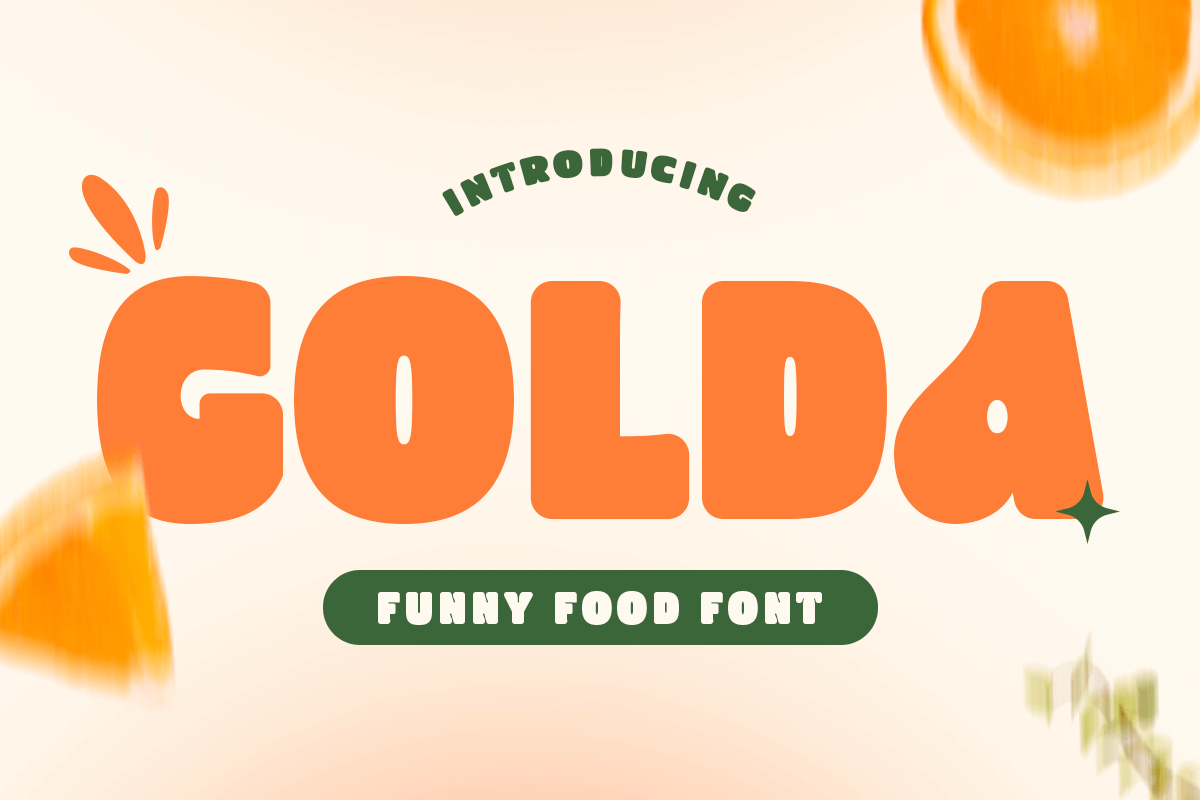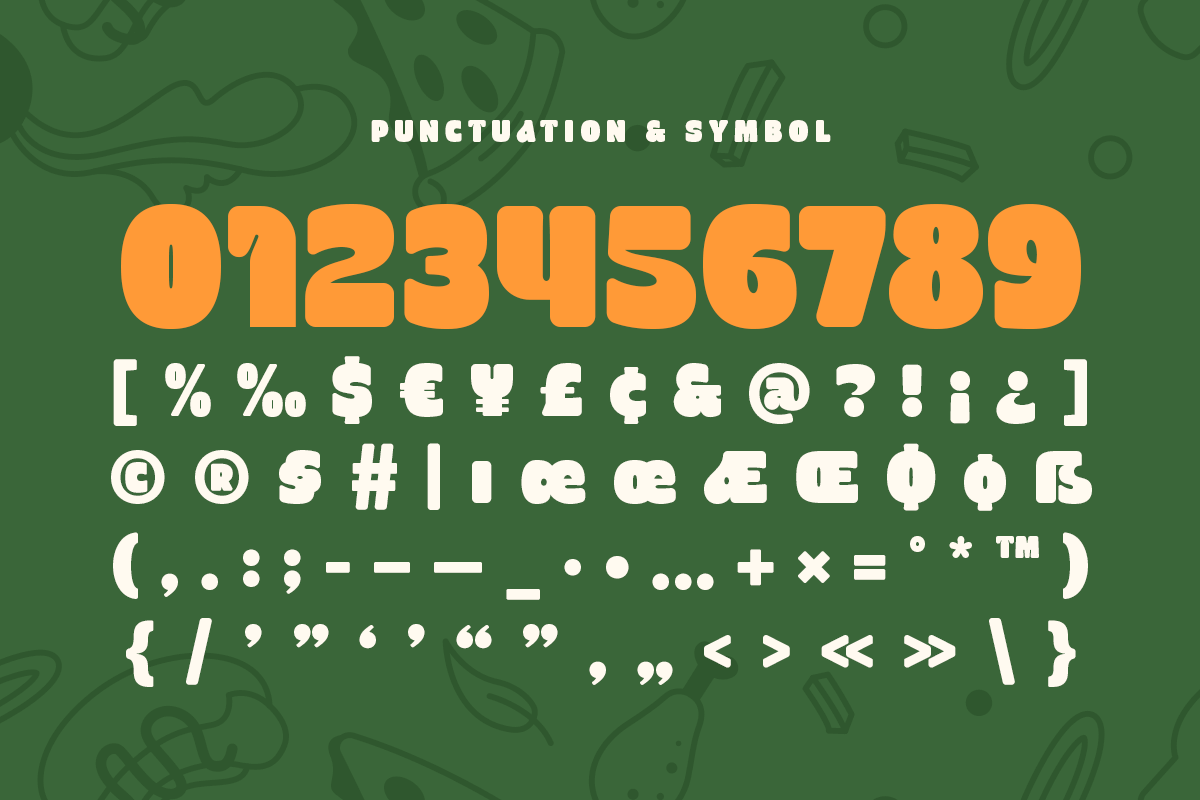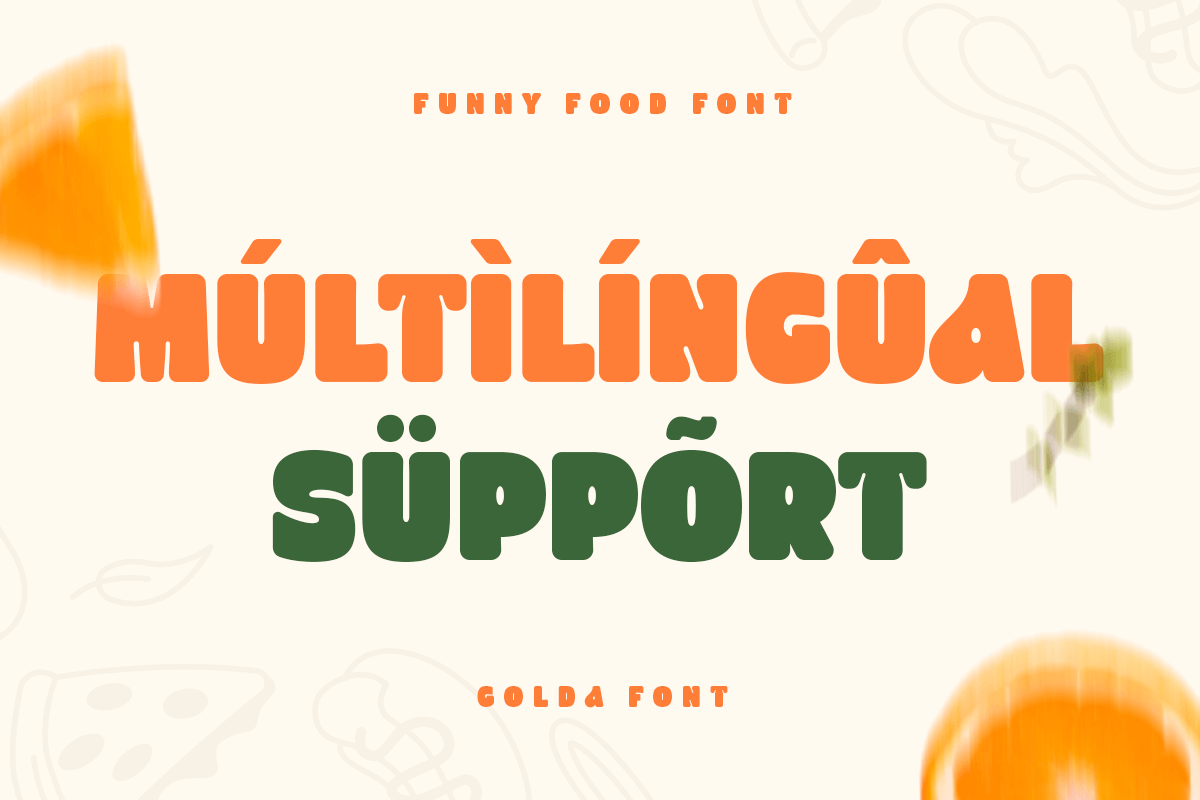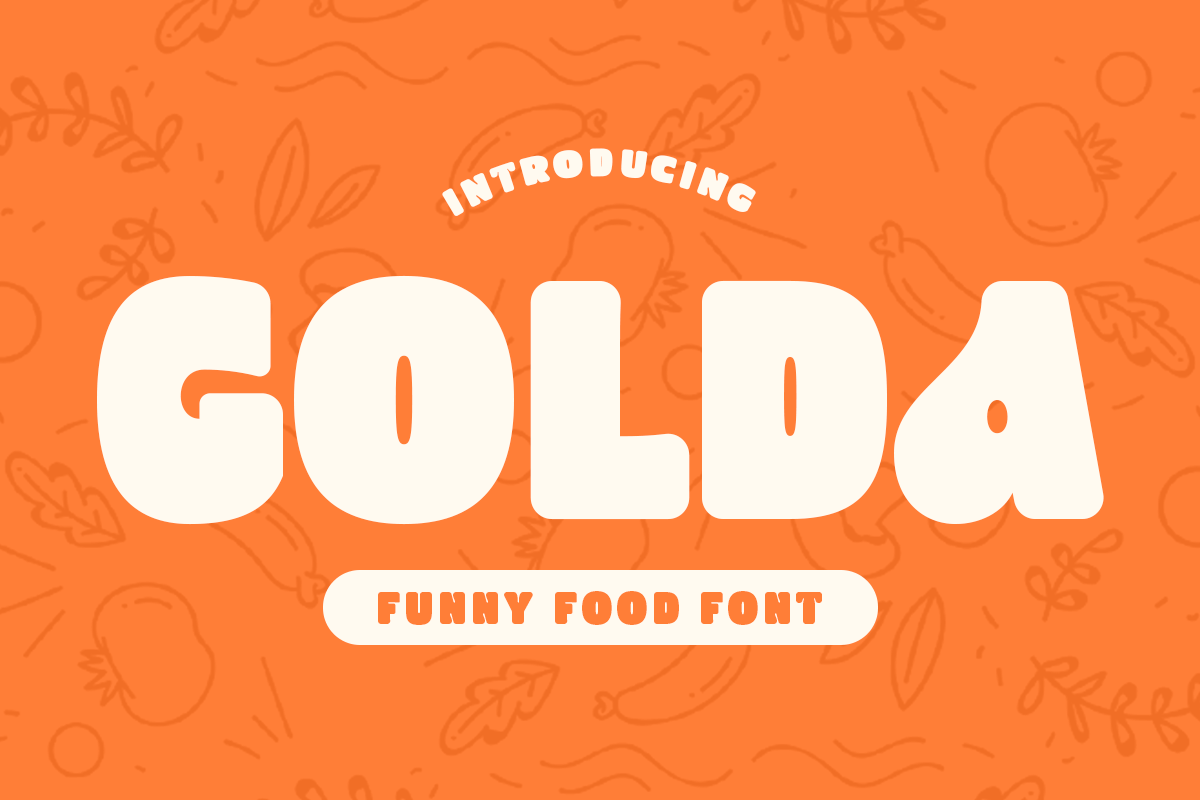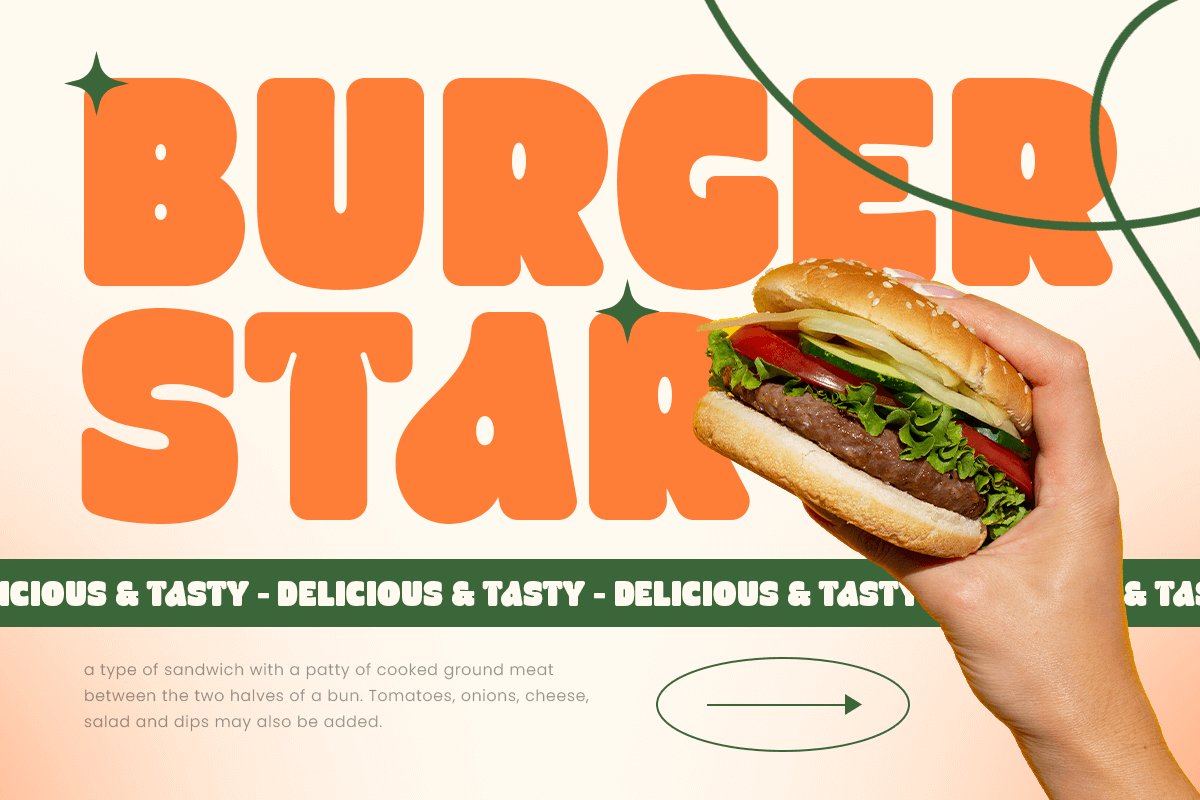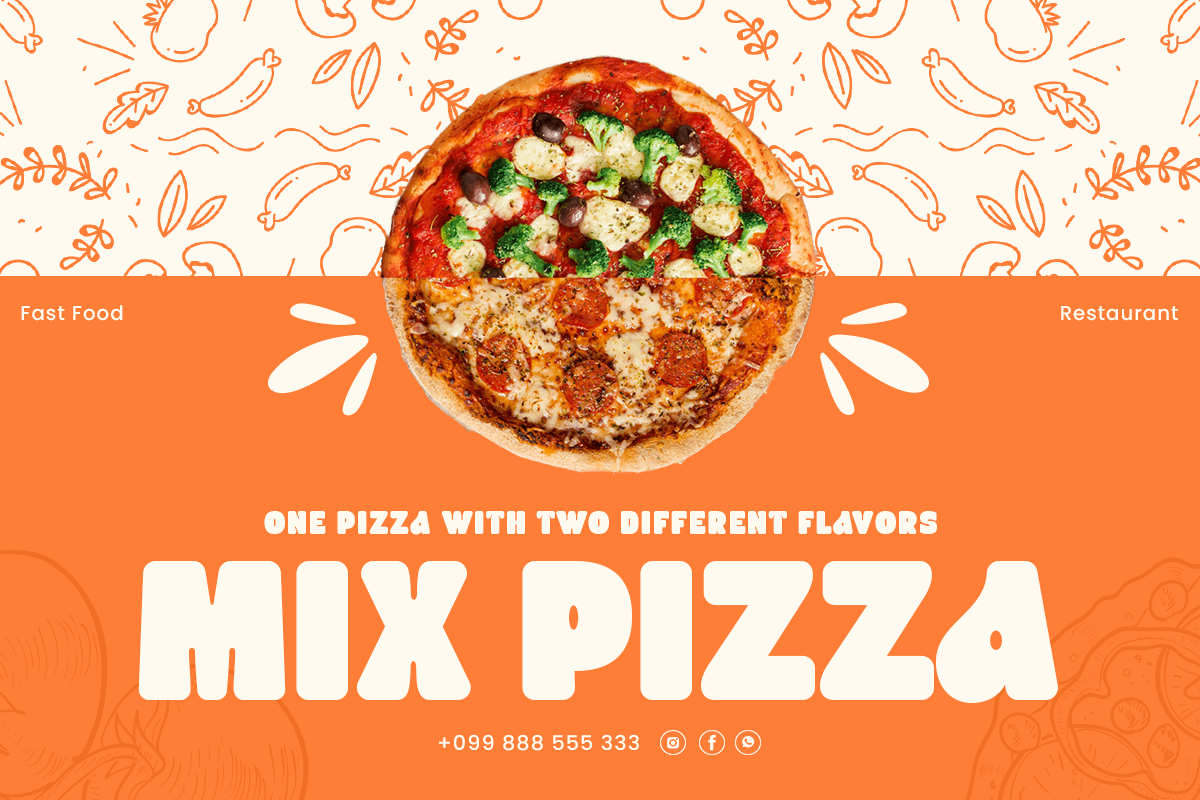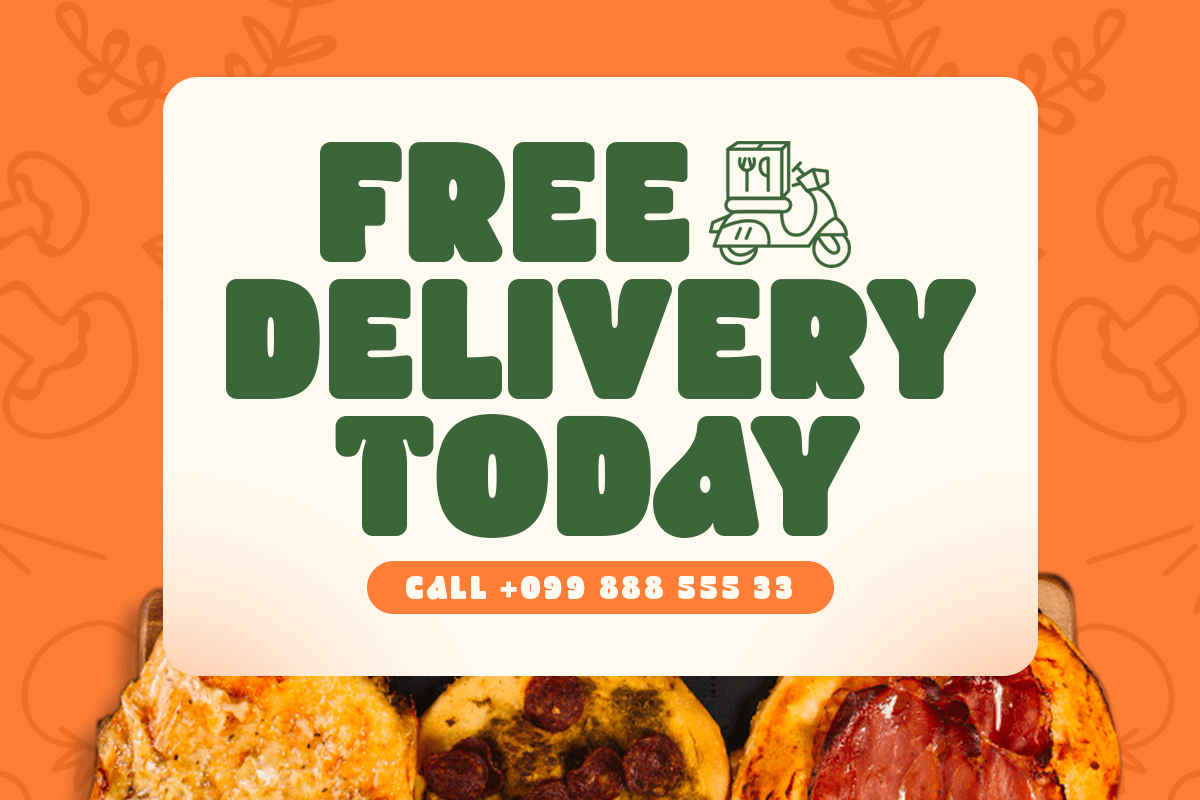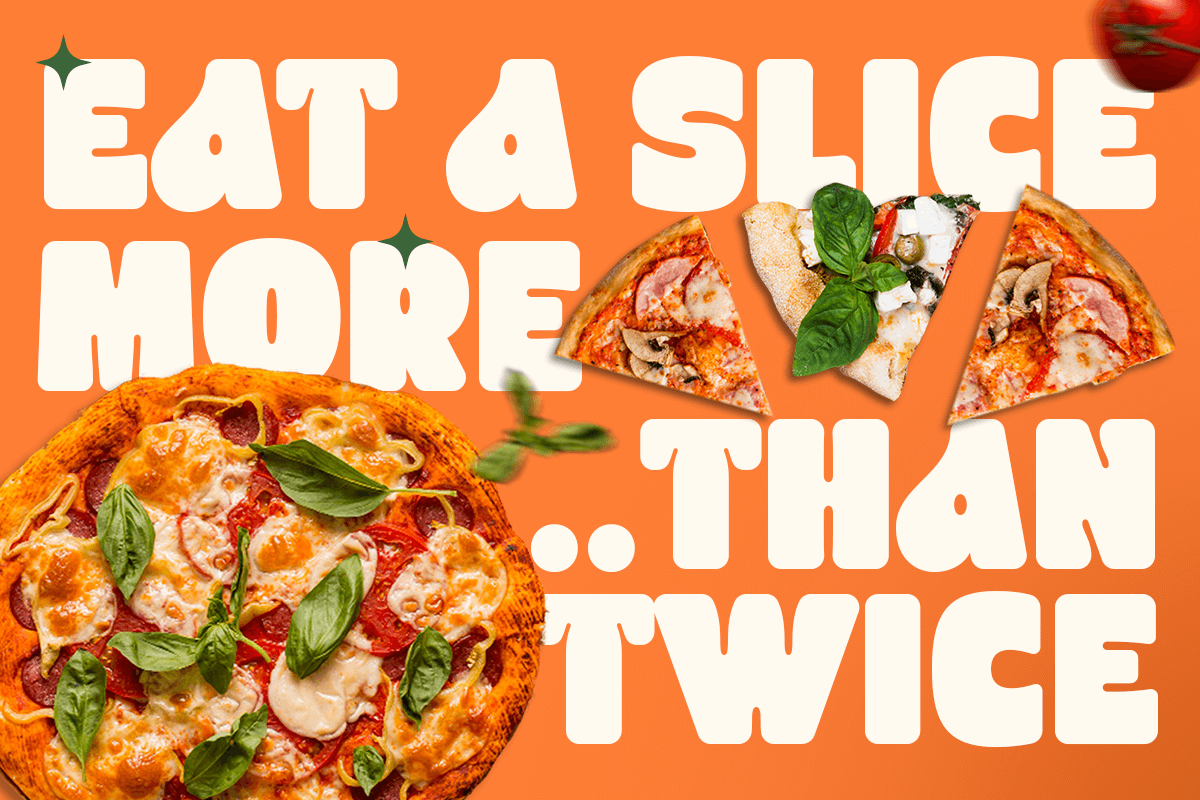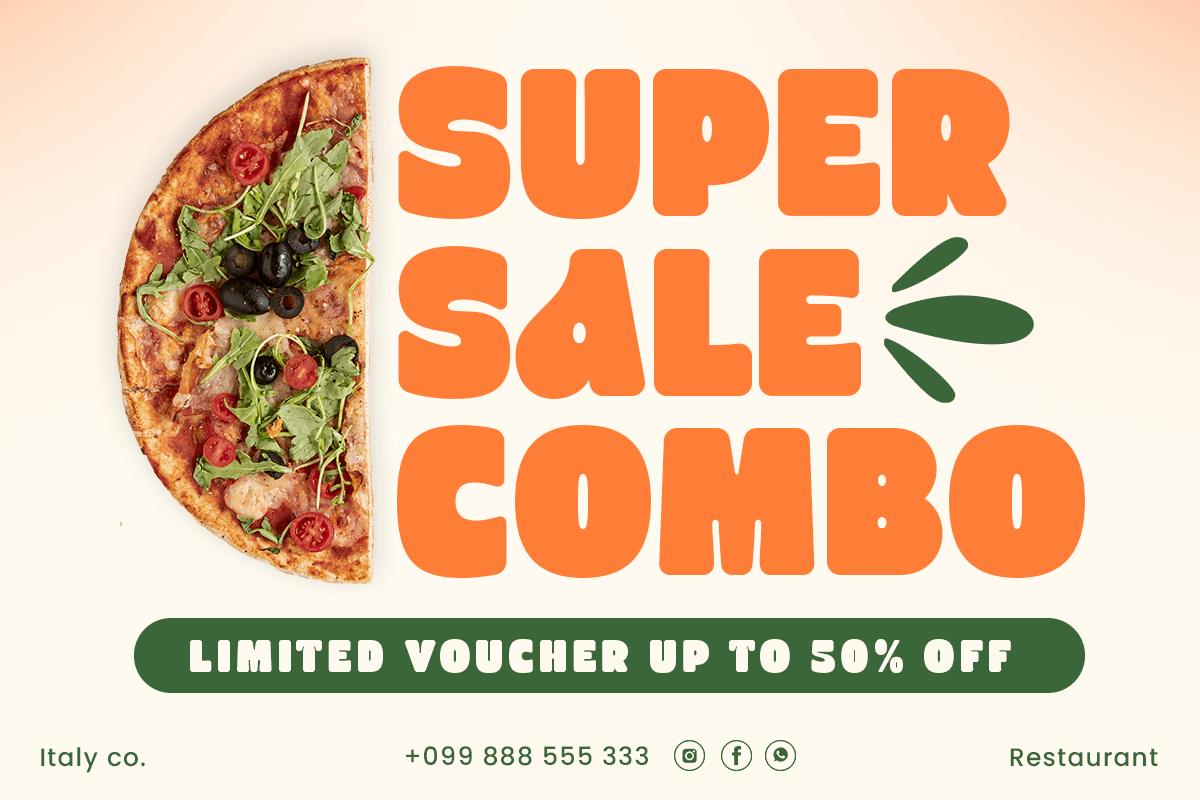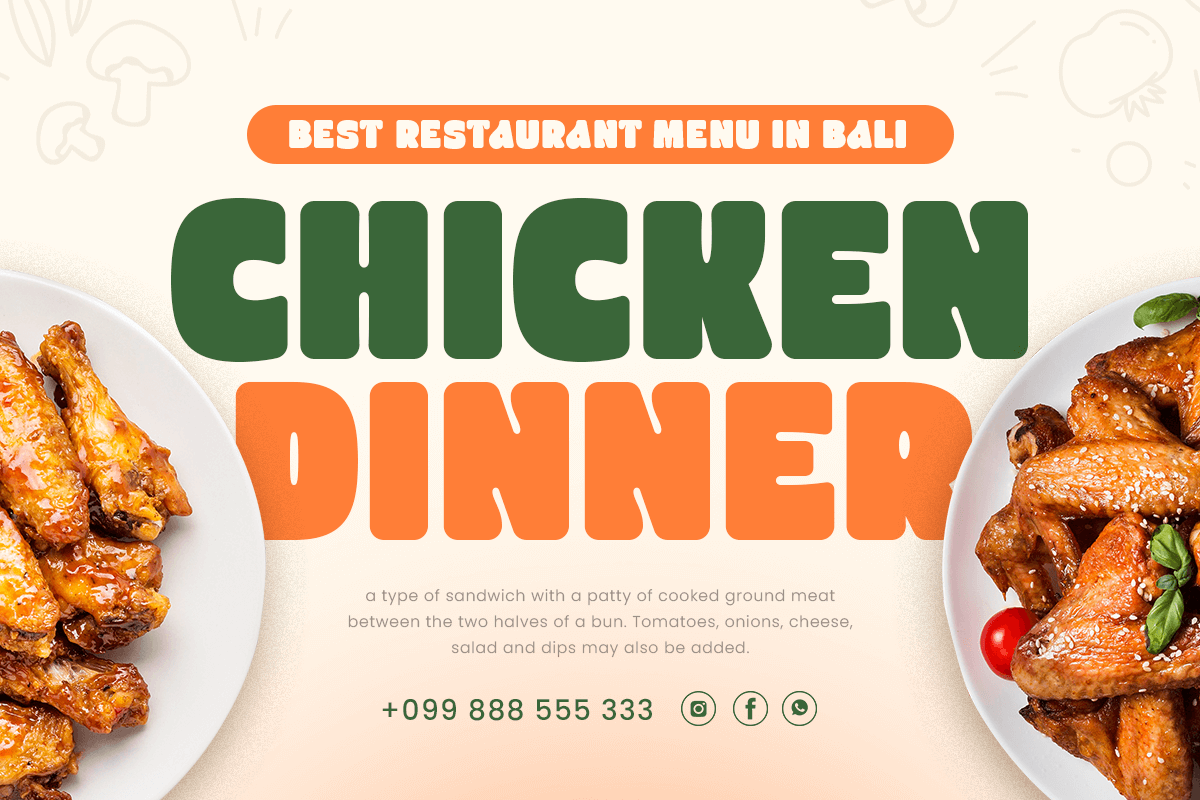
Golda
-Funny Food FontGOLDA is a fun and heavy font designed to bring a playful touch to your food-related projects. With its quirky and whimsical design, GOLDA is perfect for menus, restaurant branding, and culinary creations that aim to delight and entertain. Whether you’re creating a vibrant menu, designing a quirky logo, or developing eye-catching branding materials, GOLDA adds a cheerful and bold character to your work.
The Story Behind GOLDA:
GOLDA was inspired by the joy and creativity found in playful culinary experiences. Designed with a heavy and funny style, GOLDA captures the essence of fun, excitement, and deliciousness. It’s perfect for any project that needs to convey a sense of humor and enjoyment. From lively cafes and fun food trucks to family-friendly restaurants and whimsical food festivals, GOLDA is the ideal font for all things fun and food-related.
GOLDA Font Features:
Elevate your culinary designs with GOLDA and add a playful, bold touch to your work.